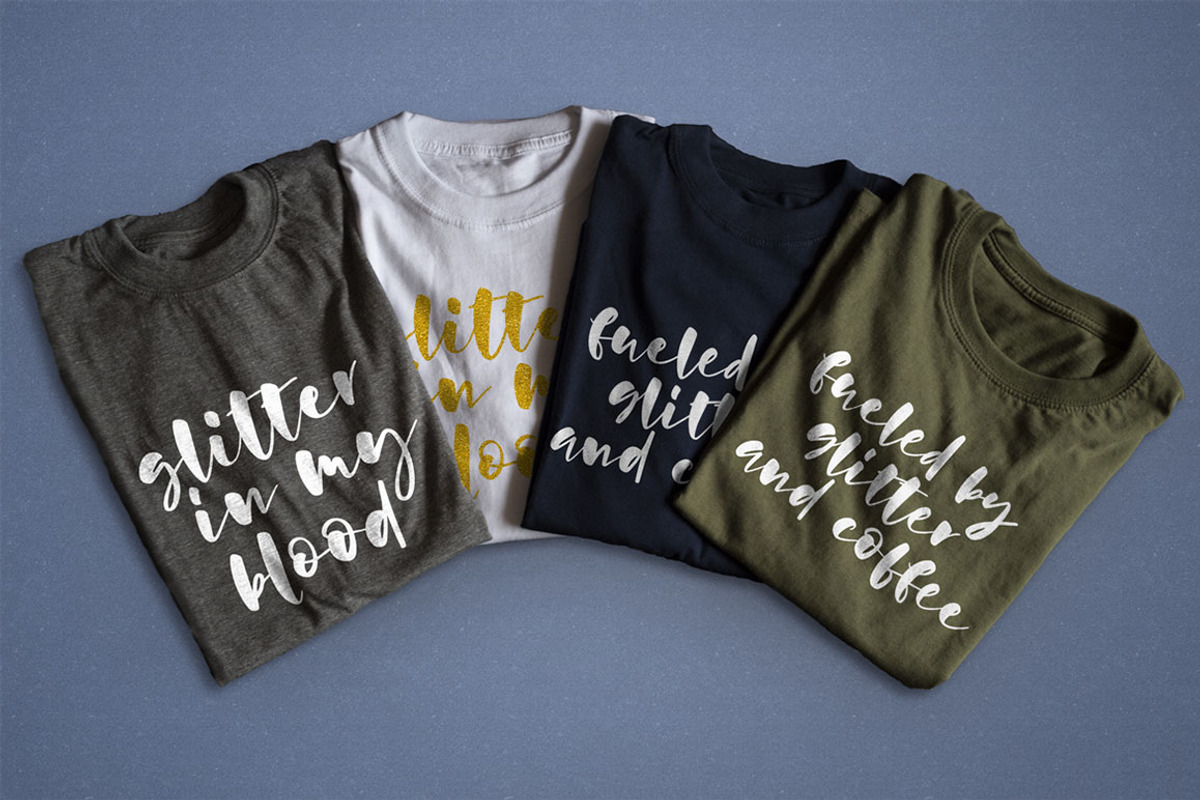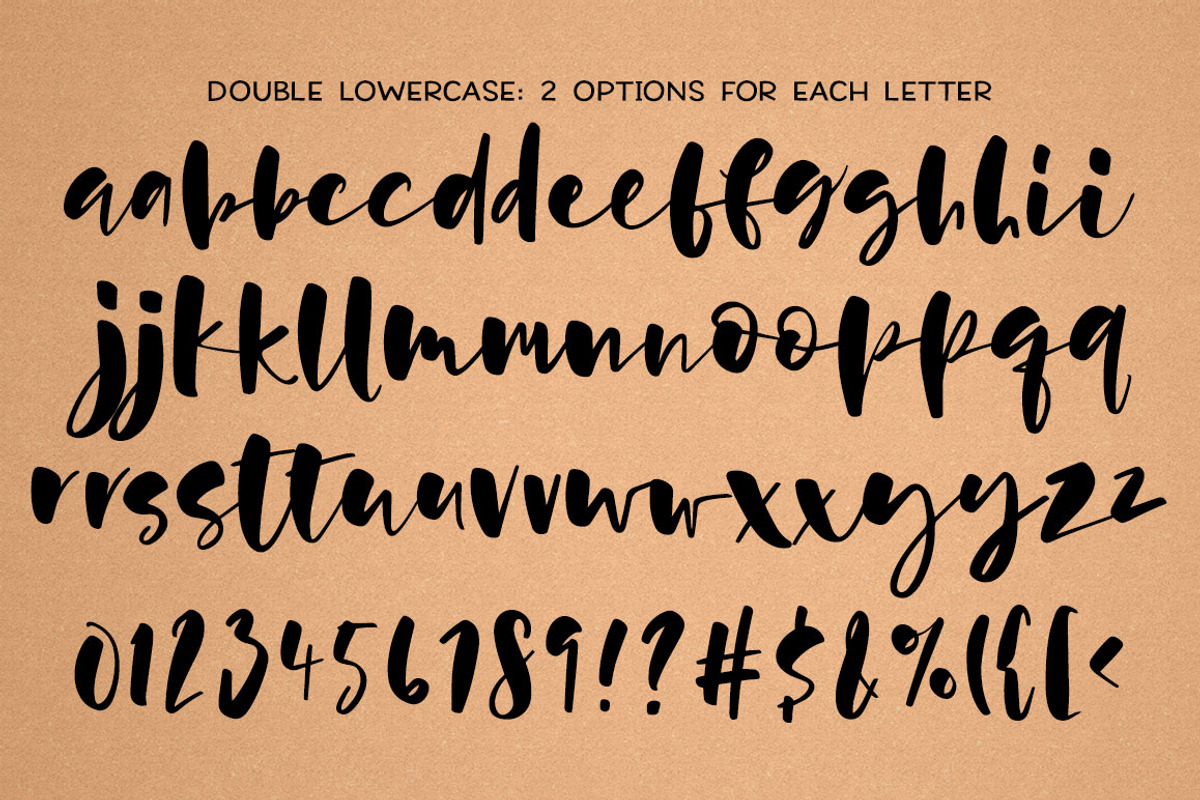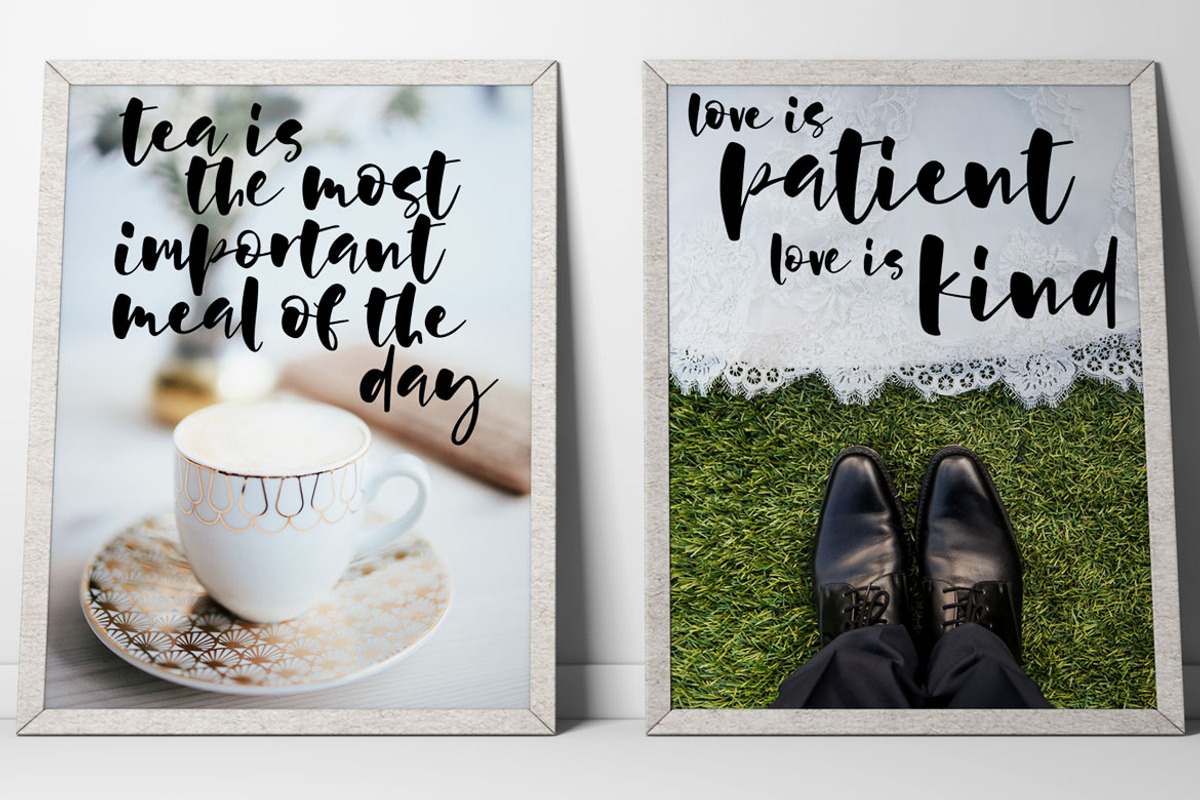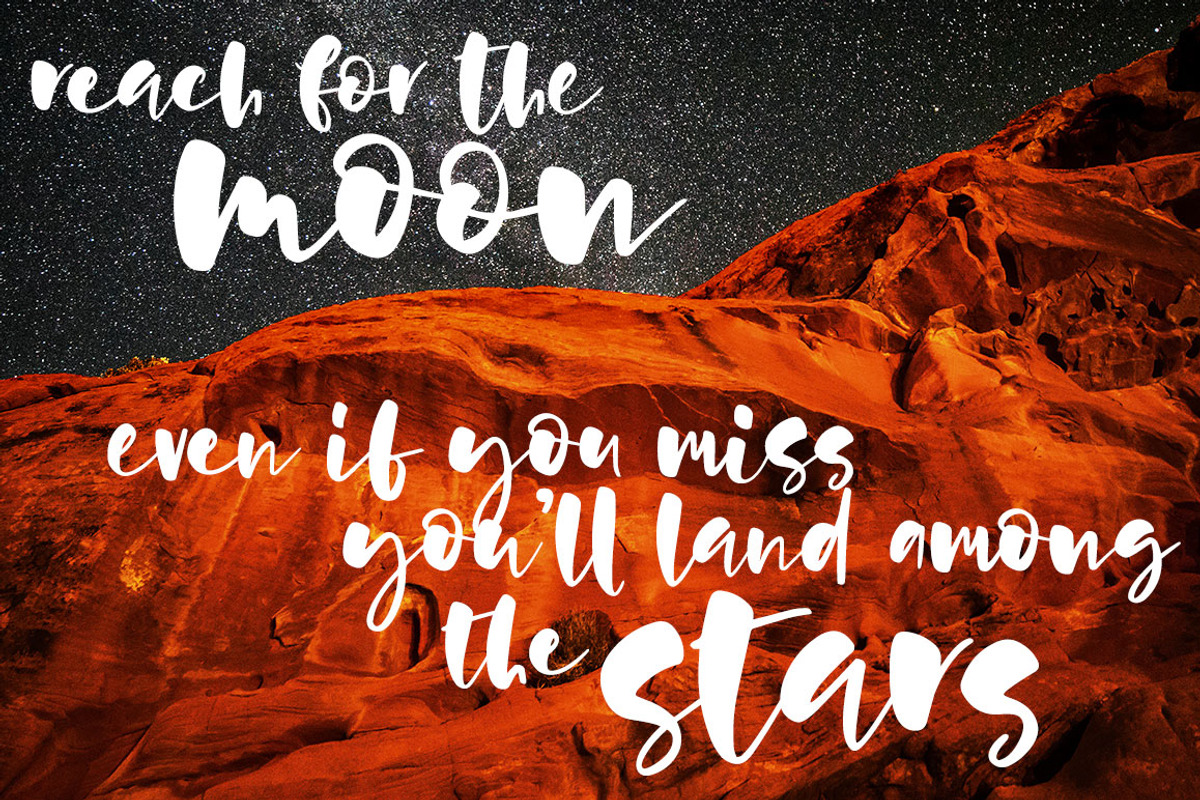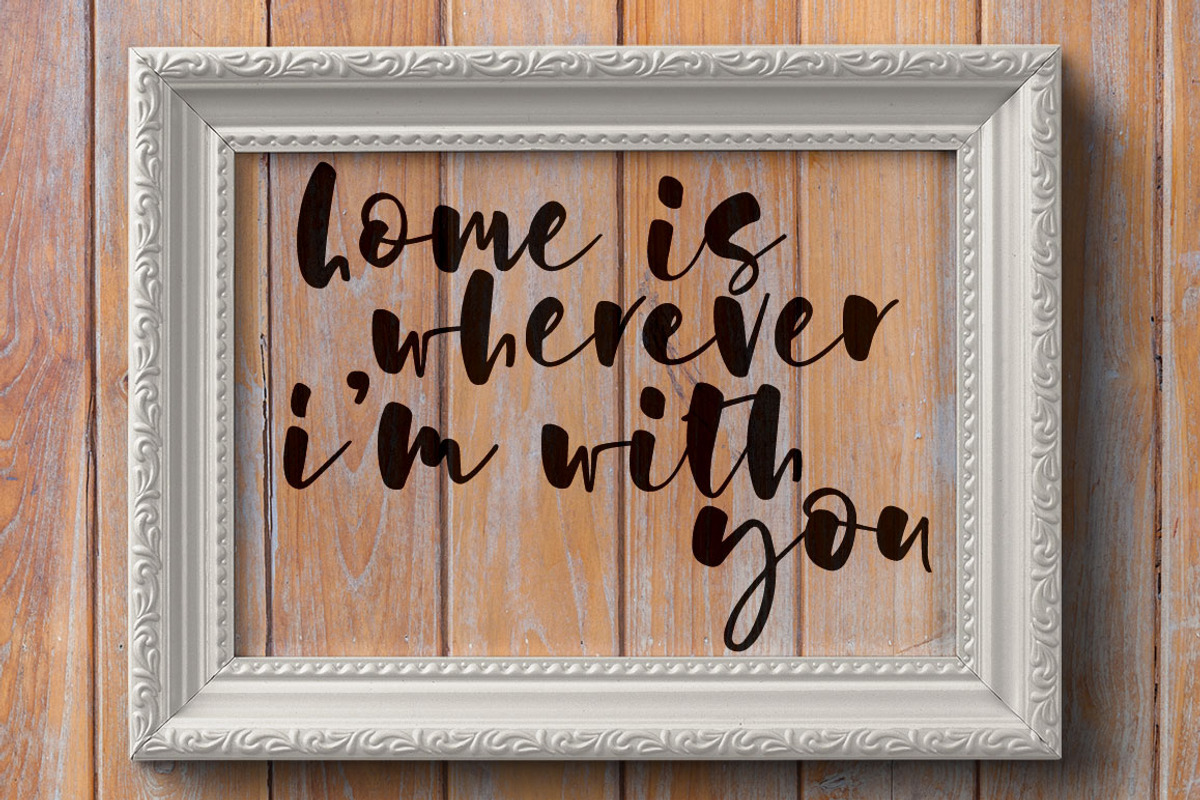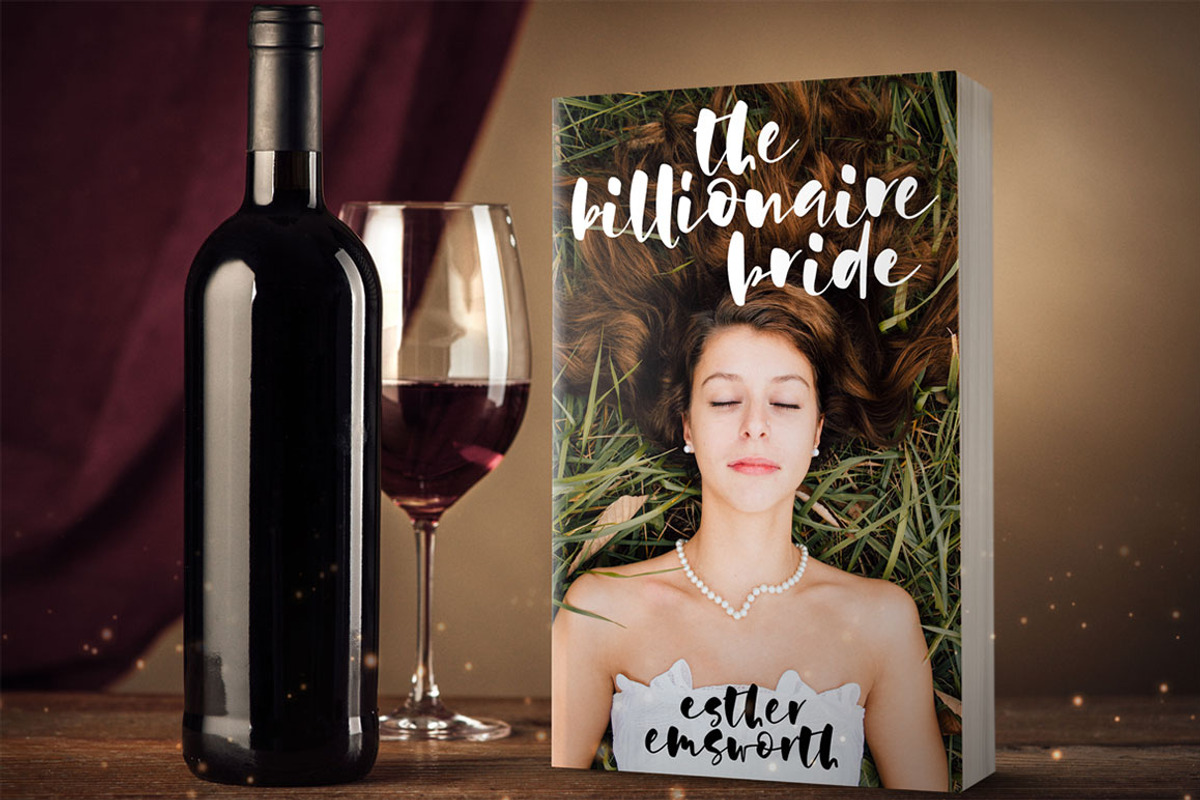
Hallsey - lowercase script font
Hallsey - lowercase script font by Missy Meyer is a font selected for branding, posters, packaging, typography.
- Hallsey also contains tons of punctuation, as well as almost 300 accented characters for language support (including English, French, Spanis
- I do a lot of double-uppercase fonts, so for a change of pace, here's a double-lowercase script font!
- Hallsey has one set of lowercase letters mapped to a-z, and then a full second set of lowercase letters mapped to A-Z.
Why Hallsey - lowercase script font is worth a look
Hallsey - lowercase script font by Missy Meyer fits naturally into Branding, posters, packaging, typography.